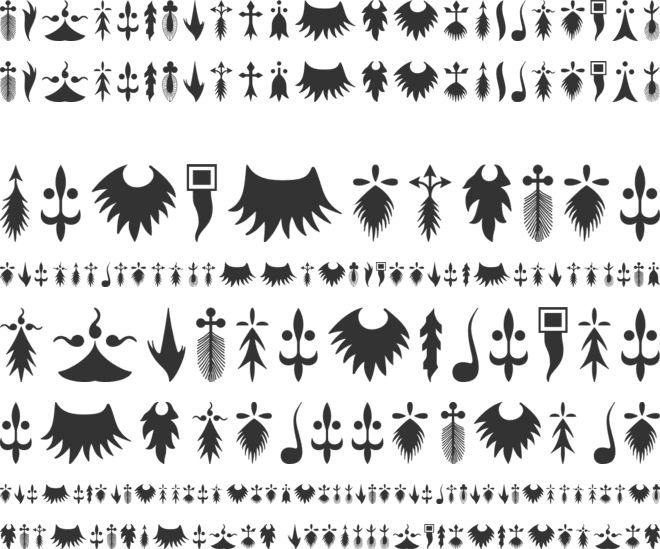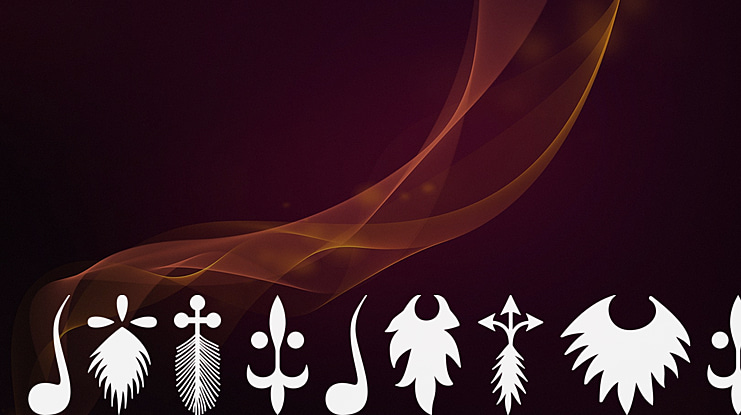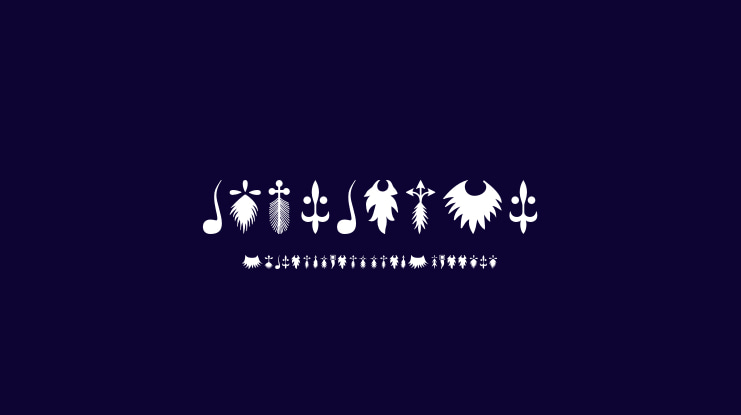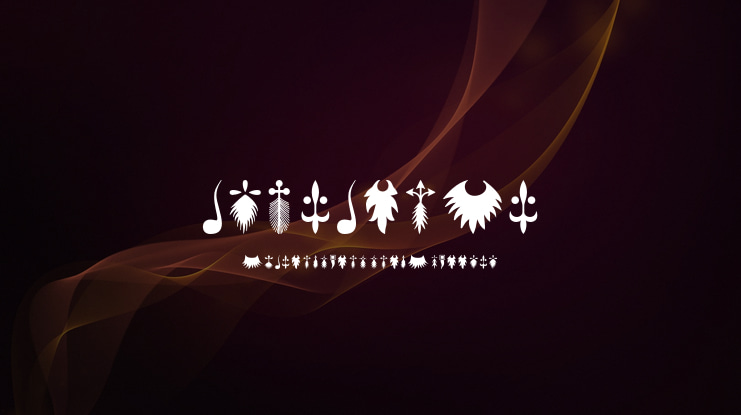
RTA Ermine Font
RTA Ermine details interpretations of the Arctic weasel's black spot of tail seen decorating coats of arms and furry trim of royalty to include crowns. Ermine spots became common-place for double linings of mantle (cape) or as individual charges placed upon shield. Ermine spots alone decorate the designated shield of Britain.